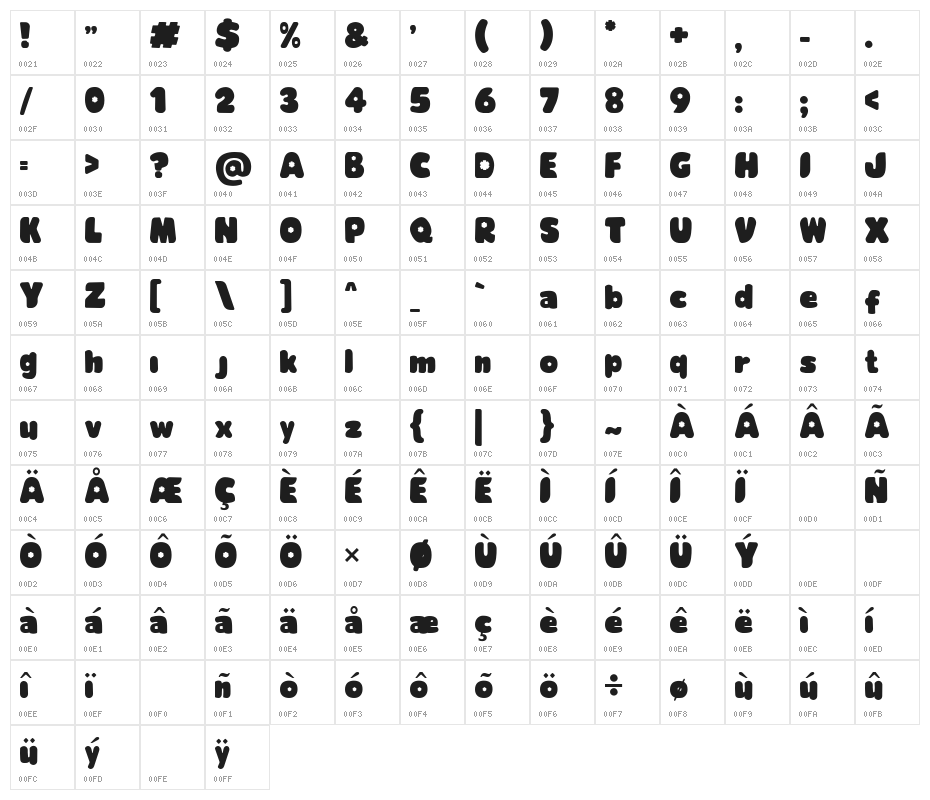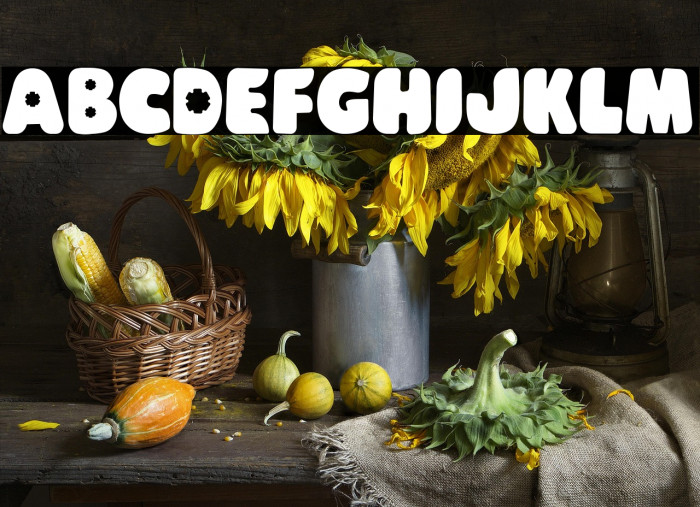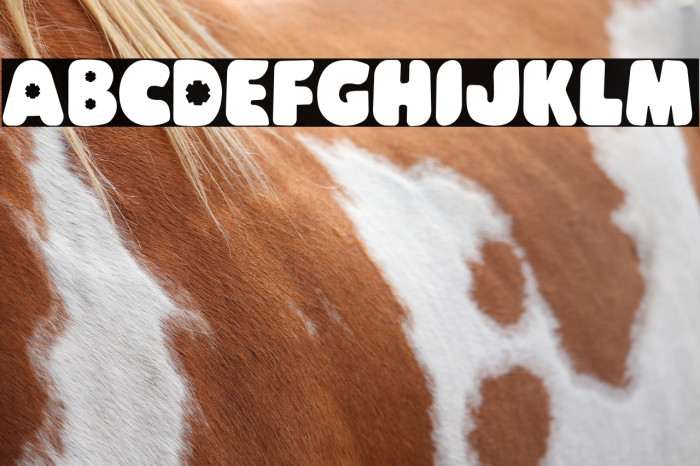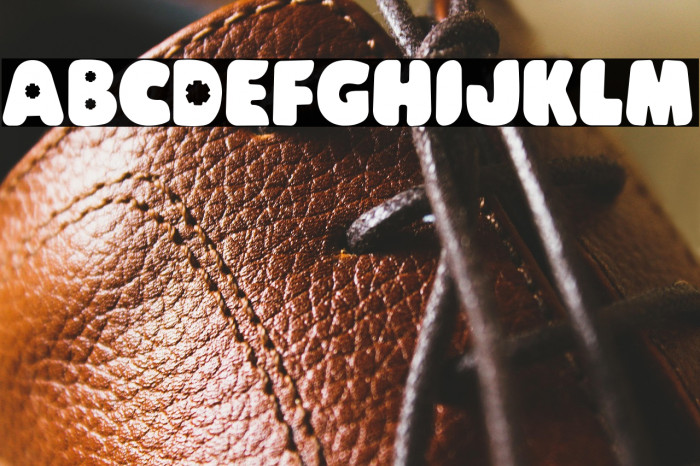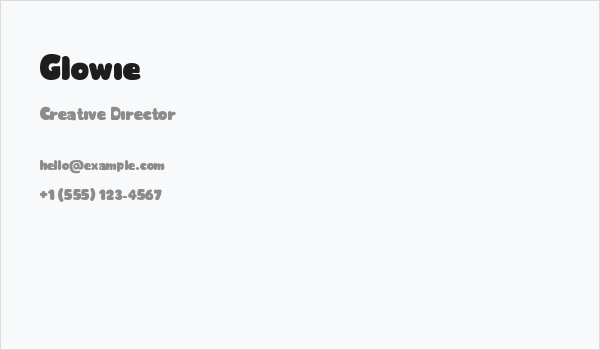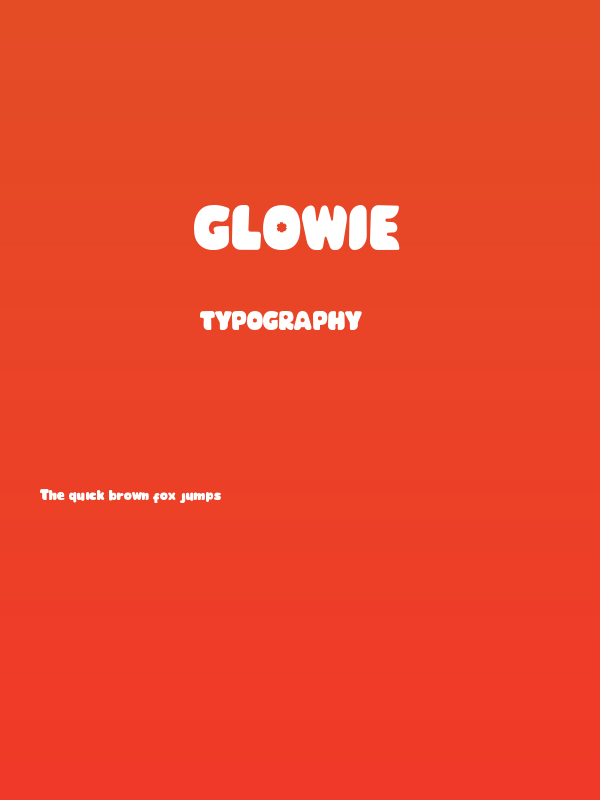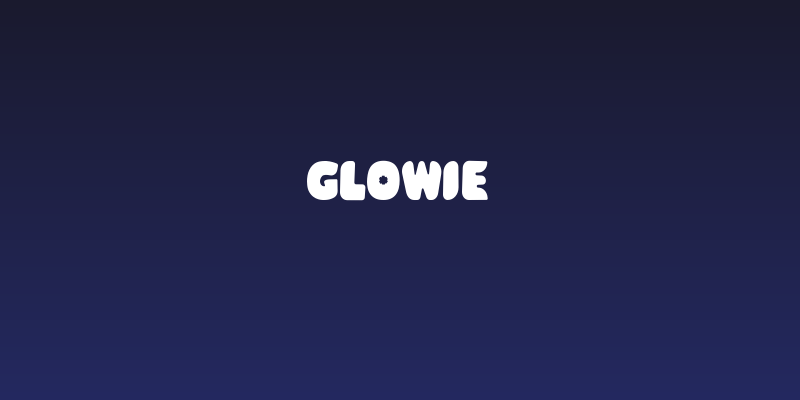
Glowie Font
Glowie Description
This playful and bold font features thick, rounded characters with a bubbly appearance. The letters are uniformly wide, creating a sense of cohesion and balance. The font's design incorporates subtle irregularities, adding a whimsical touch. It is highly legible and stands out due to its substantial weight and unique style. The characters are closely spaced, enhancing its compact and impactful look. This font is perfect for projects that require a fun and friendly vibe, making it ideal for children's books, playful branding, or eye-catching headlines.
| Use Case | Headlines, Logos, Children's materials |
| Proposed Projects | Ideal for children's books, playful branding, and eye-catching headlines. |